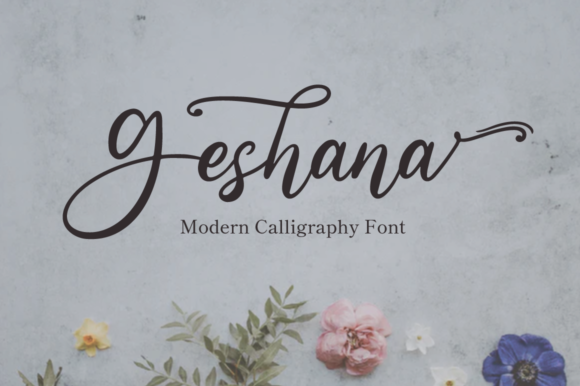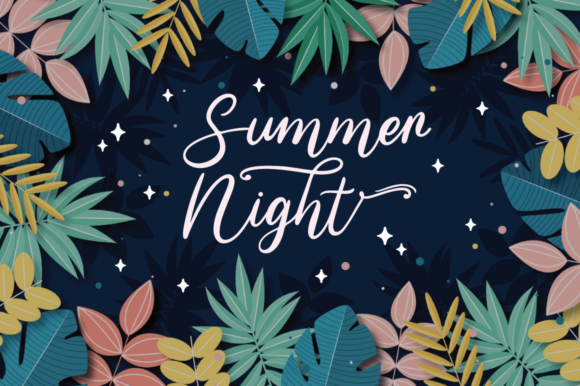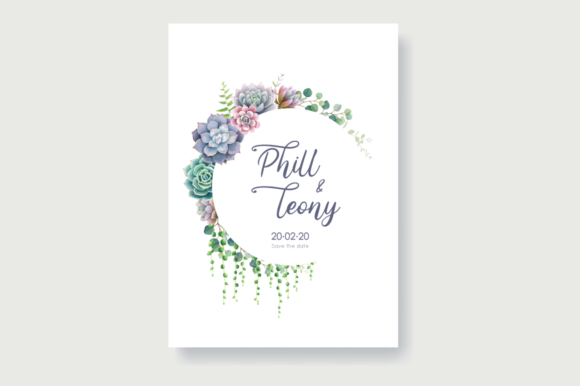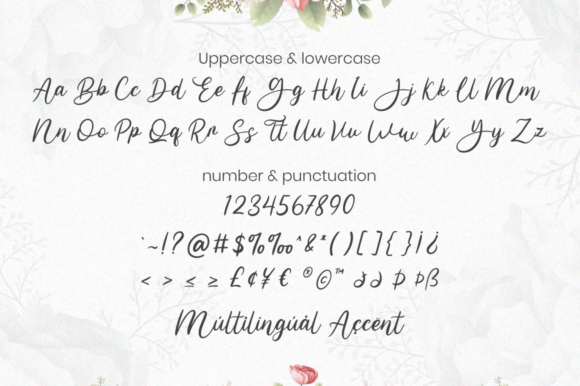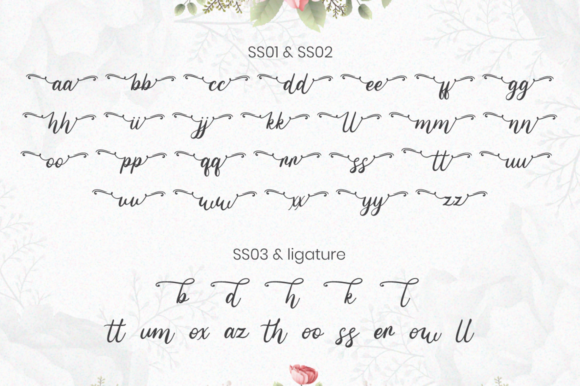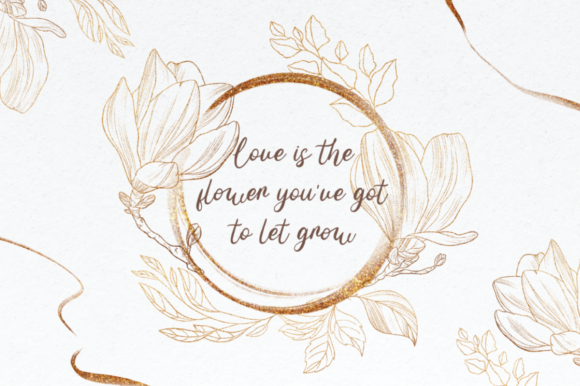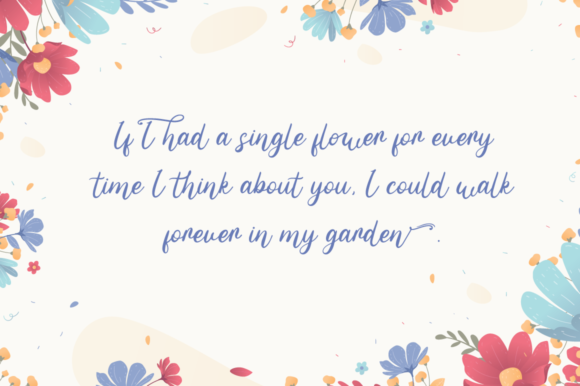
Geshana Font
About Geshana Font
Geshana is a lovely and delicate script font that exudes elegance and class. This font was particularly crafted for those who need a beautiful and refreshing look to their designs.